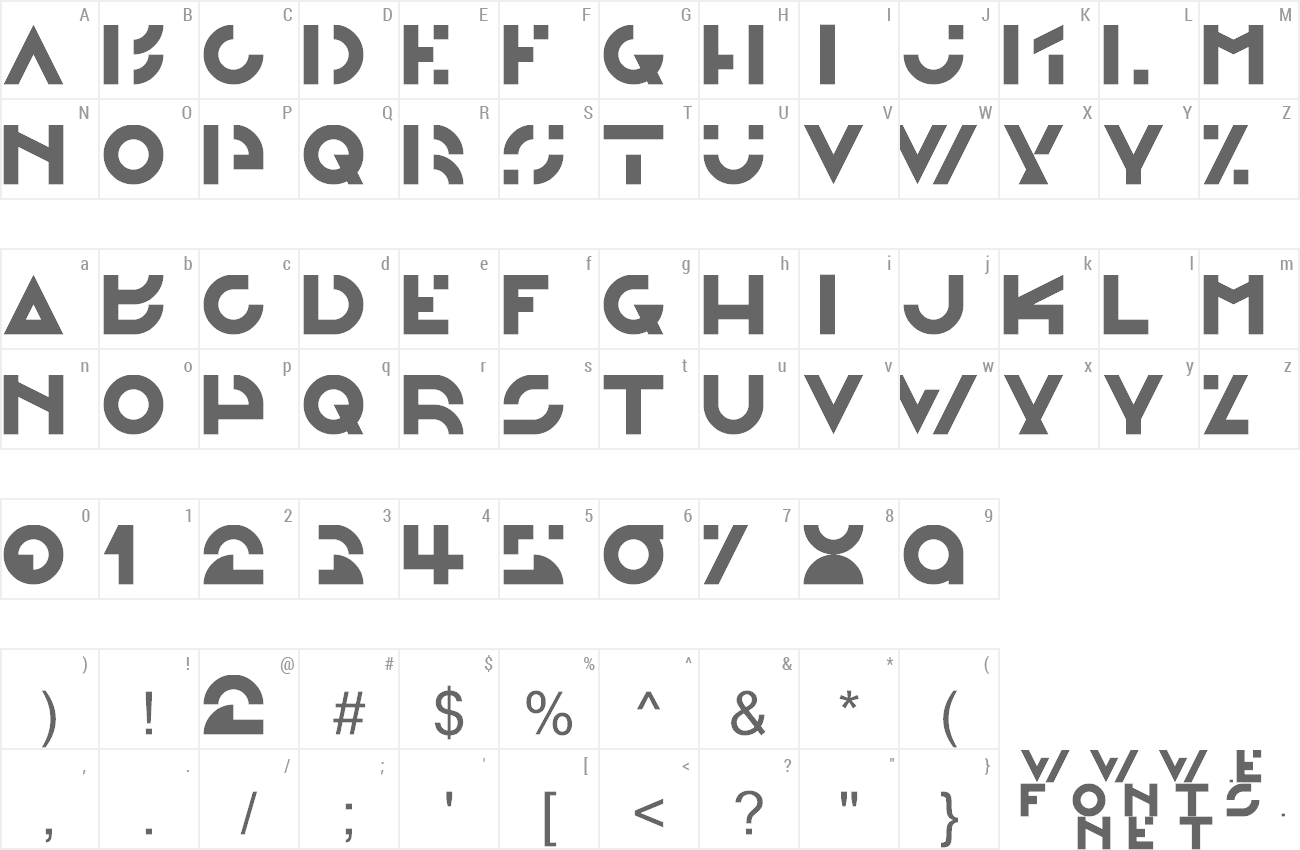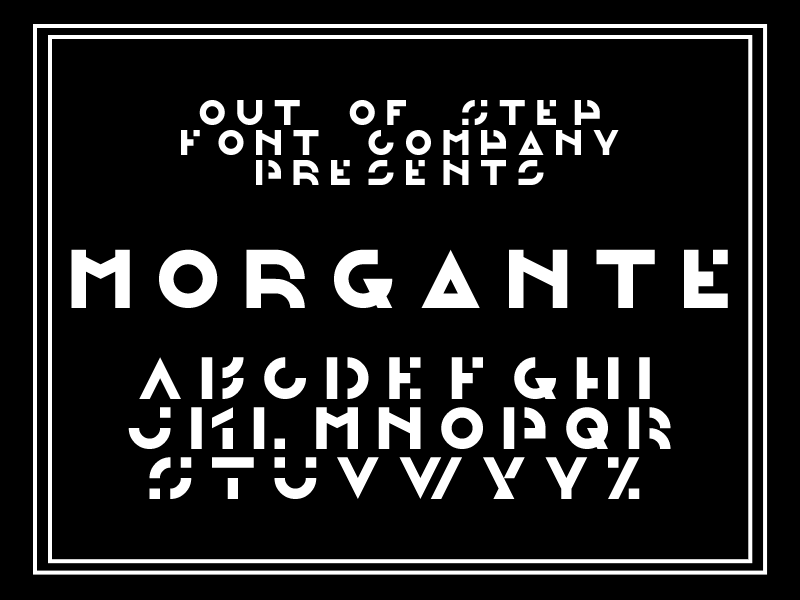
Preview and download Morgante Font. Created by Out of Step Font Company in Fancy Various styles with Free for personal use license.
Morgante is a decorative ulra-modern sans serif font inspired by the work of Angelica Baini and Marco Oggian. Upper case letters are more open and airy than the lower case letter set. A number set is also included. Morgante v1.0 is free for personal use. Morgante Regular v2.11 substantially expands the character set, and improves the metrics. The updated typeface and full list of new characters are available exclusively through our store: http://outofstepfontco.com/collections/all/products/morgante-regular https://www.facebook.com/OutOfStepFontCompany |